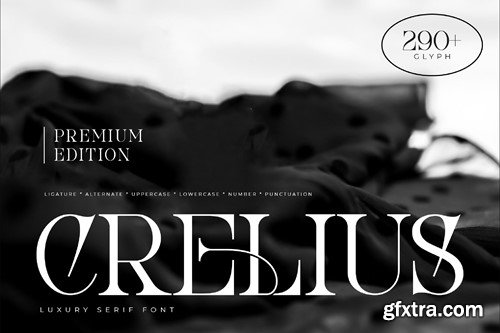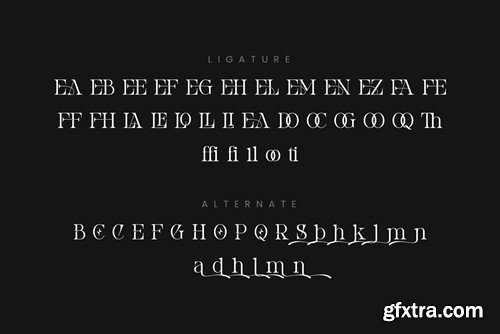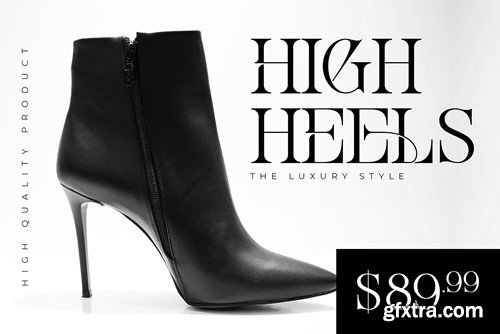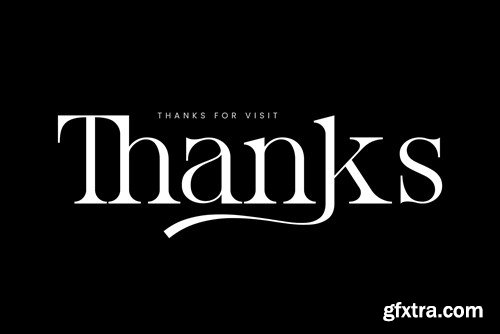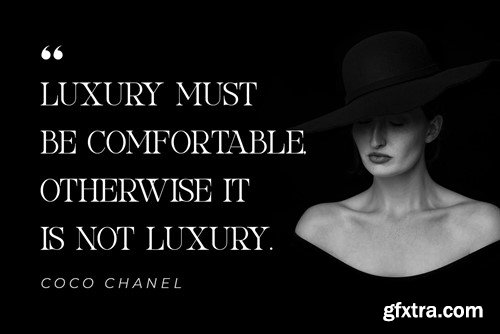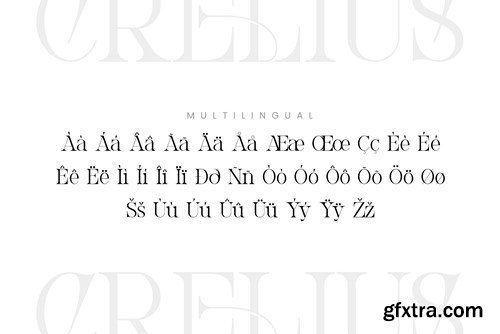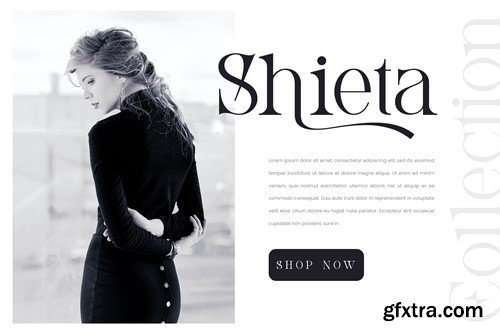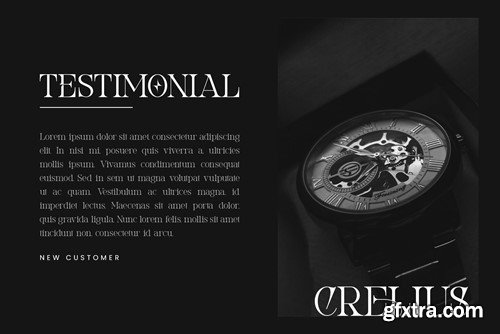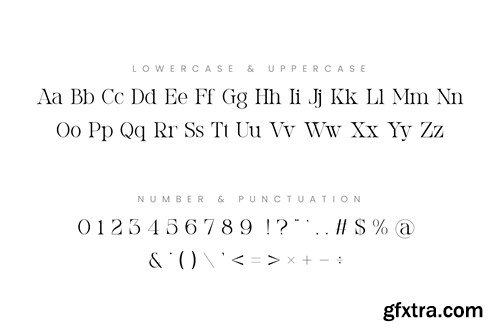
Crelius Luxury Serif Font
Crelius Serif is a balanced, smooth, elegant and stylish serif font. He has a beautiful character. It fits perfectly with invitation card designs, company logos, movie titles, movie names, business cards, book titles, brand names and various other designs. Crelius Serif is a subtle serif font that exudes sophistication and elegance. Its stylish alternations and ligatures make this font the perfect partner for any project.
FEATURE :
• Ligature
• Uppercase and lowercase
• Numbering and Punctuation